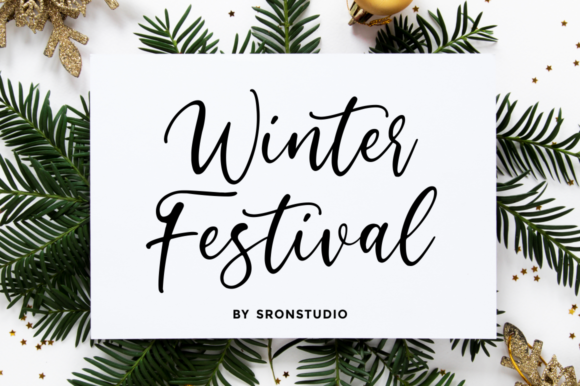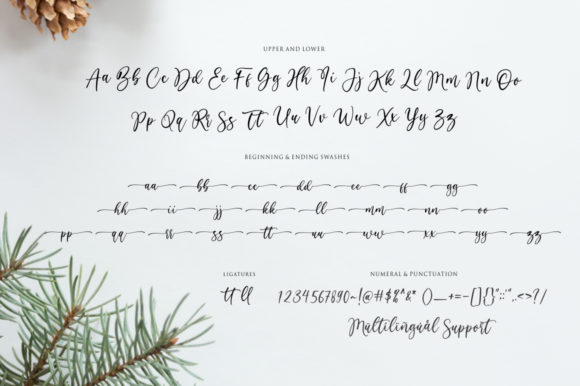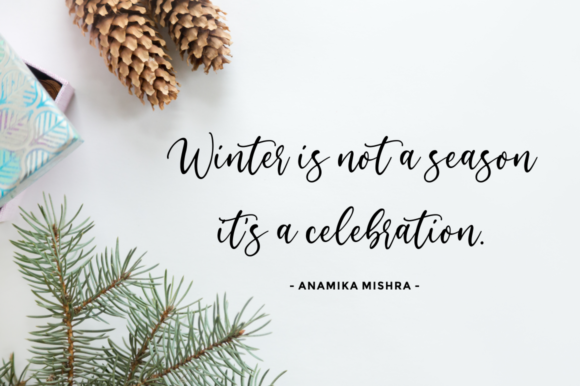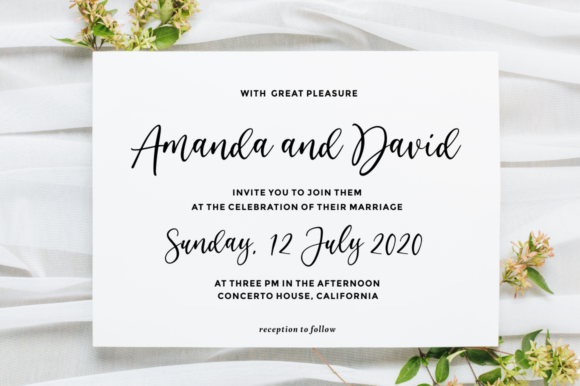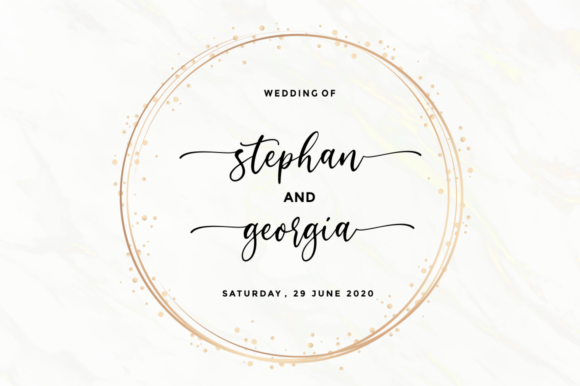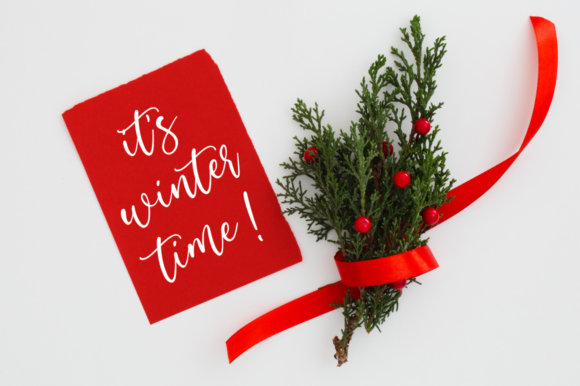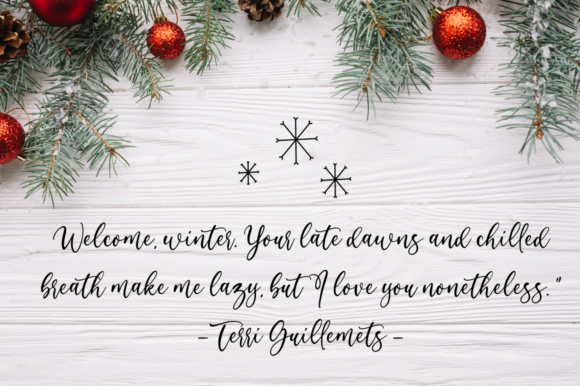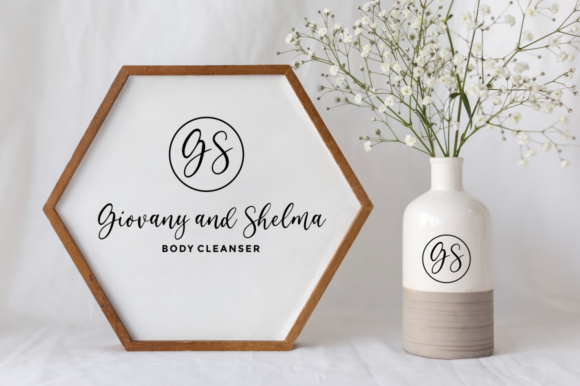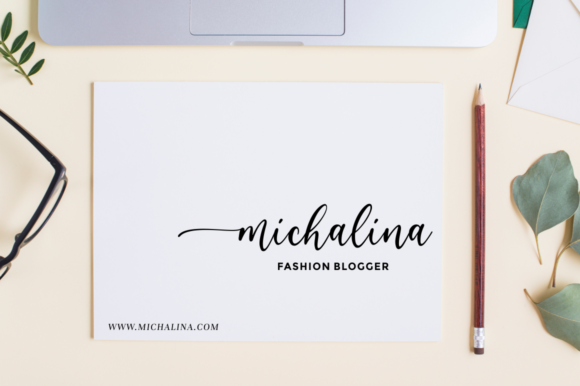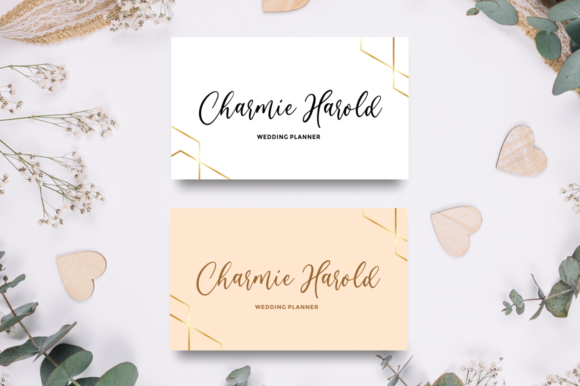
HomeScript FontsWinter Festival Font Script Fonts Winter Festival Font FacebookXPinterestWhatsApp Winter Festival Font Poster 2 Winter Festival Font Poster 3 Winter Festival Font Poster 4 Winter Festival Font Poster 5 Winter Festival Font Poster 6 Winter Festival Font Poster 7 Winter Festival Font Poster 8 Winter Festival Font Poster 9 Winter Festival Font Poster 10 About Winter Festival Font Winter Festival is a beautiful calligraphy font. It will add a touch of elegance to any design project! DOWNLOAD NOW People also explored A Pair of Doves Font Nightmarish Font Stone Font Pastel Font Antum Font Fahira Font Little Blob Font Loventtine Font Jeuliteung Font 299 0 TagsWinter Festival Font Previous articleAngelin FontNext articleLoveolline Font LEAVE A REPLY Cancel reply Comment: Please enter your comment! Name:* Please enter your name here Email:* You have entered an incorrect email address! Please enter your email address here Website: Save my name, email, and website in this browser for the next time I comment. Personal Use Free Hysteria Santa Personal Use Free Read more about this font Green Farmhouse Personal Use Free Read more about this font Edo SZ Personal Use Free Read more about this font Colombia Personal Use Free Read more about this font BLOG Fonts That Capture the Spirit of New York City New York City is more than just a place—it’s an experience, a rhythm, a visual language... Using Fonts in Digital Marketing: Tips to Strengthen Your Brand Identity Top 10 Handwritten Fonts That Elevate Your Designs Top 7 Google Fonts Alternatives for Faster and Privacy-Friendly Web Design (2025)